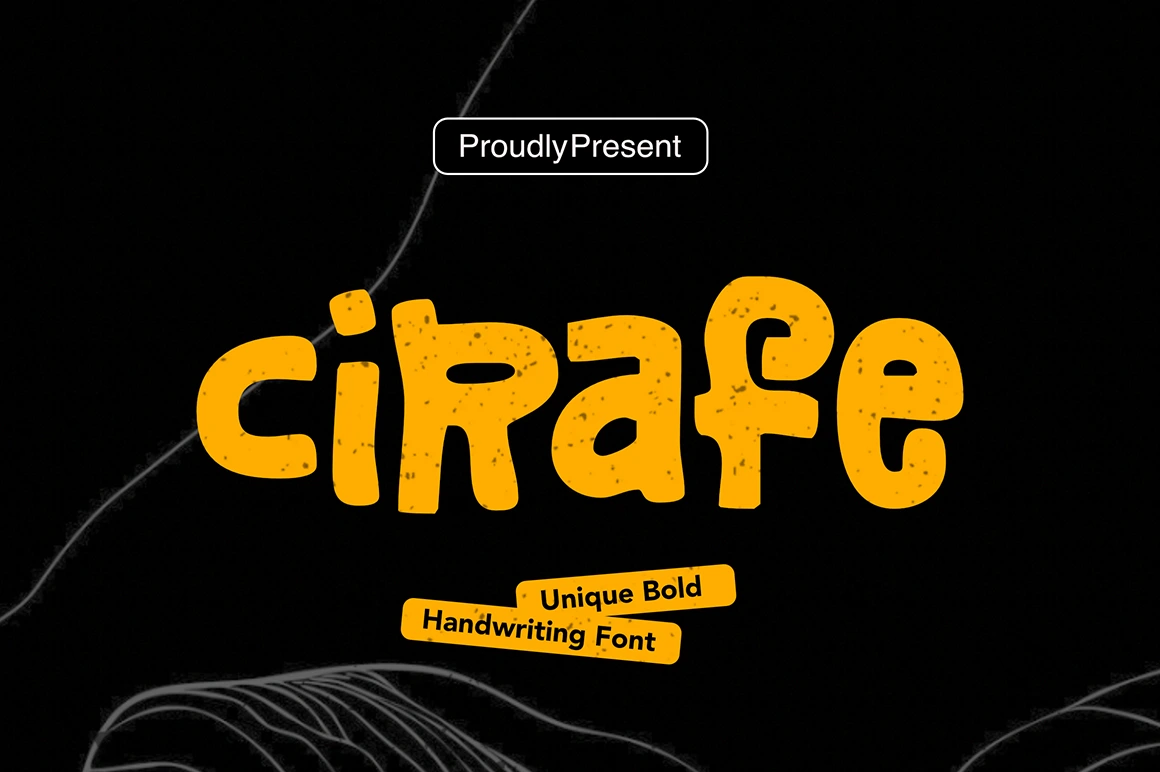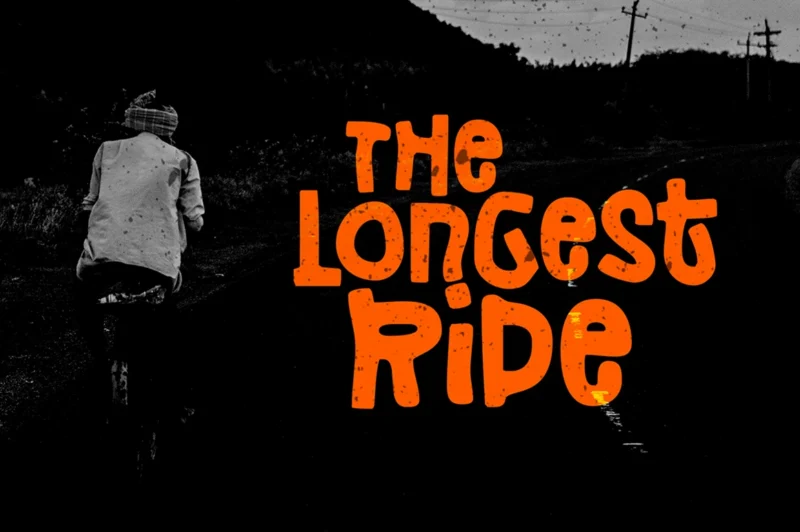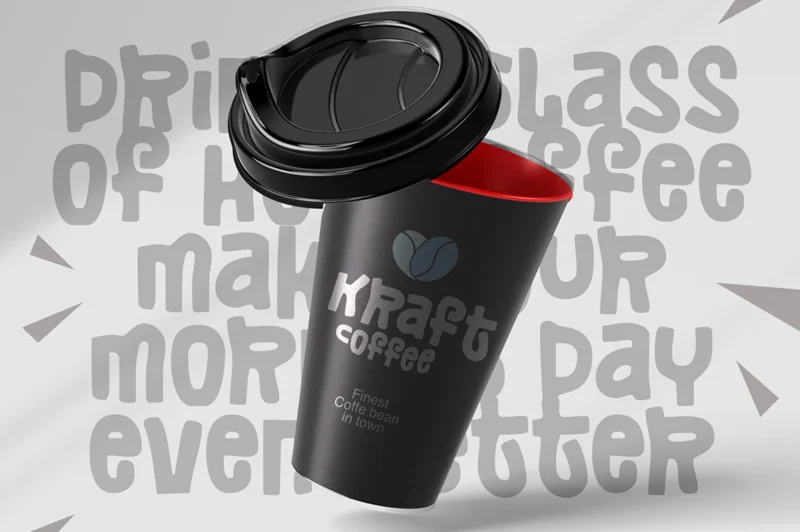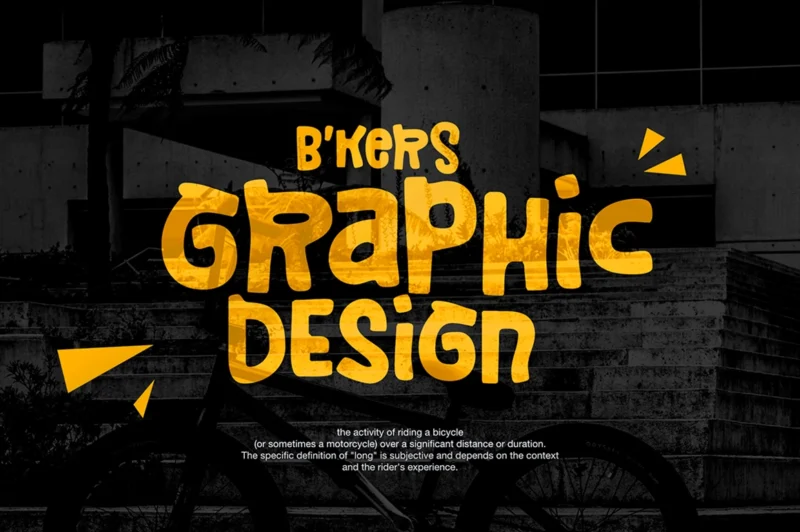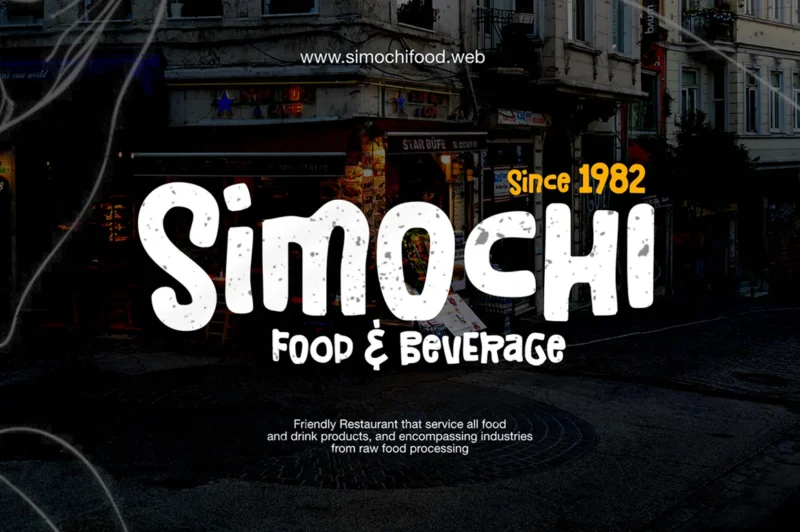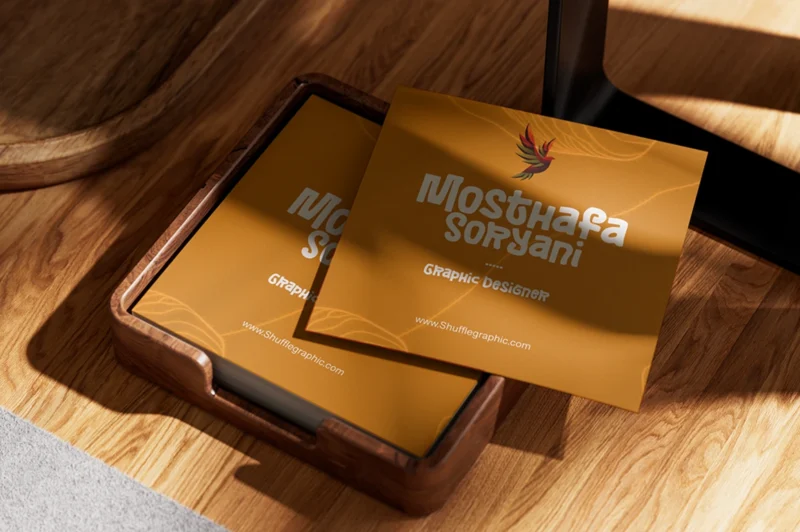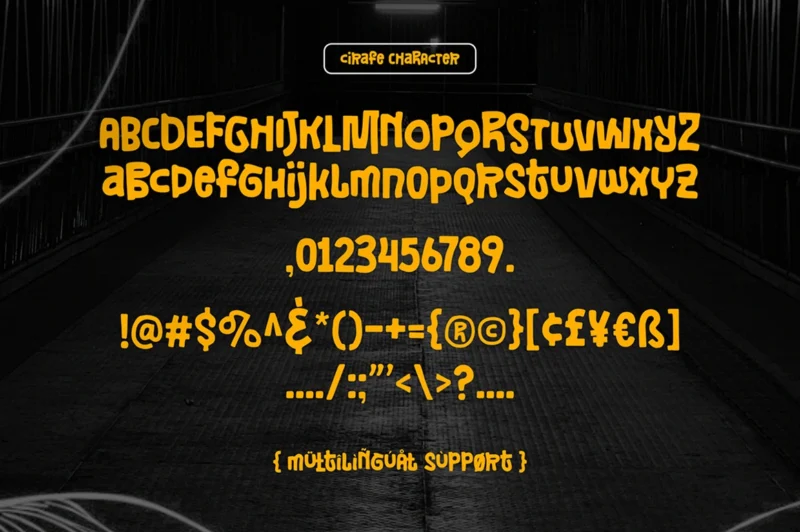
Cirafe Font
Cirafe is a unique and bold handwriting font, crafted to bring personality and impact to any design. Its modern handwritten style combines expressive strokes with strong visual presence, making it an excellent choice for digital and creative projects. Whether you’re crafting a memorable brand name, or developing a striking logo, Cirafe delivers a stylish, confident, and contemporary look. Its distinctive character ensures your design captures attention and leaves a lasting impression.
Features:
• Unique Bold Font
• Basic Latin Glyphs
• ligatures & Alternates
• Numeral and Punctuation
• Currencies
• Multilingual Support
Cirafe – Bold handwriting Font